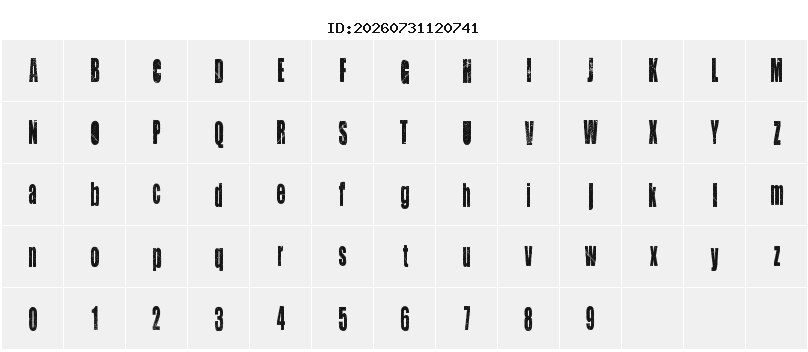
• Font Name: Life is so wonderful
• Designer: junkohanhero
About Life is so wonderful.ttf
Life is so wonderful.ttf is a modern, elegant sans-serif font designed for ultimate readability and visual harmony. Perfect for branding, headlines, web design, and print materials.